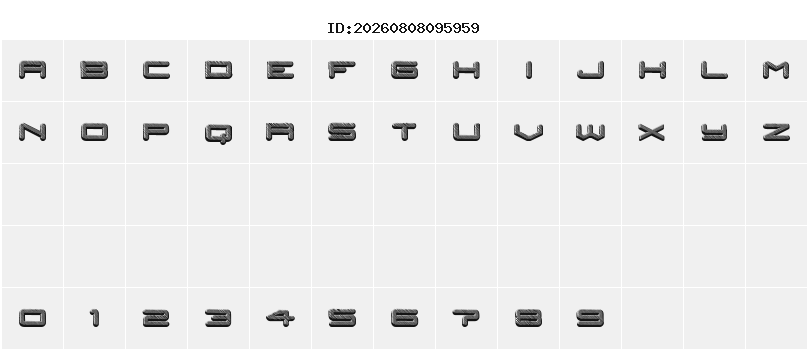
• Font Name: Posthuman
• Designer: IMAGEX
About Posthuman.ttf
Posthuman.ttf is a modern, elegant sans-serif font designed for ultimate readability and visual harmony. Perfect for branding, headlines, web design, and print materials.